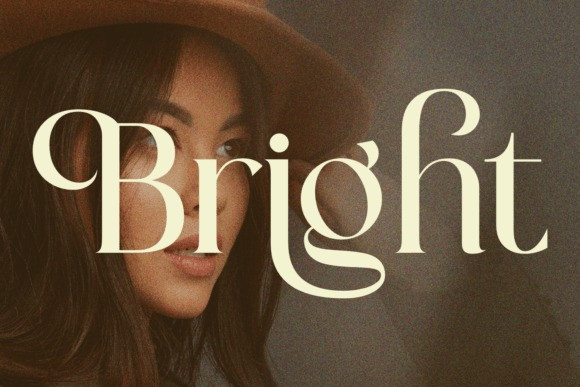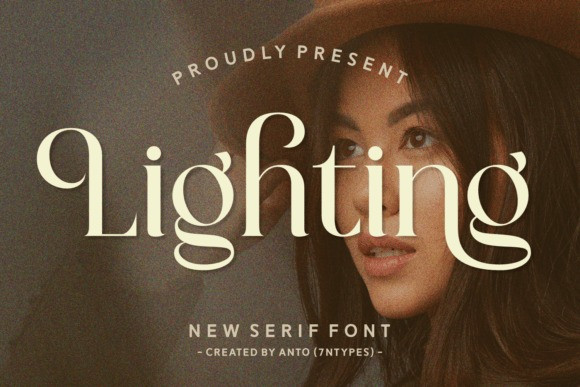
Lighting Font
Lighting Font This striking serif font gives a nod to the festivities like Valentine’s and New Year celebrations, and adds a dose of romance to weddings and love declarations. Its multi-lingual capability, accommodating both Eastern European and accented expressions, serves international range. Exuding freshness and authenticity, the smooth strokes of the Lighting font offers a unique, clean typeface fit for a myriad of purposes. Destined to shine on covers, cards, magazines, and books, it adds an alluring touch to t-shirts, greeting cards and even punctuates your favorite quotes with flair. Within the realm of branding, Lighting stands dominant, enhancing brand design, apparel, product packaging, and invitations with its appealing aesthetics. It excels too in the creation of eye-catching labels, posters, and logotypes. And, not to forget, the additional swoosh of its swashes characteristics, adding that extra flourish to your creative ventures. Let Lighting illuminate your world of typography today.